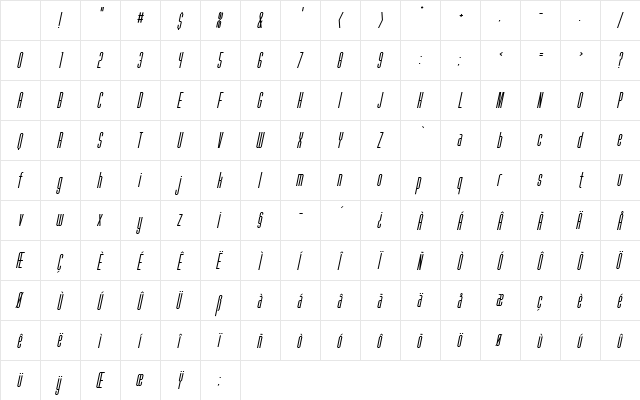
Fanatique is a composed and adaptable typeface that performs quietly and consistently across a wide range of design contexts. The slanted form adds forward momentum and visual energy.
Pro Tip: Use Fanatique for emphasis, pull quotes, and subheadings where its slanted energy can add rhythm to the layout.